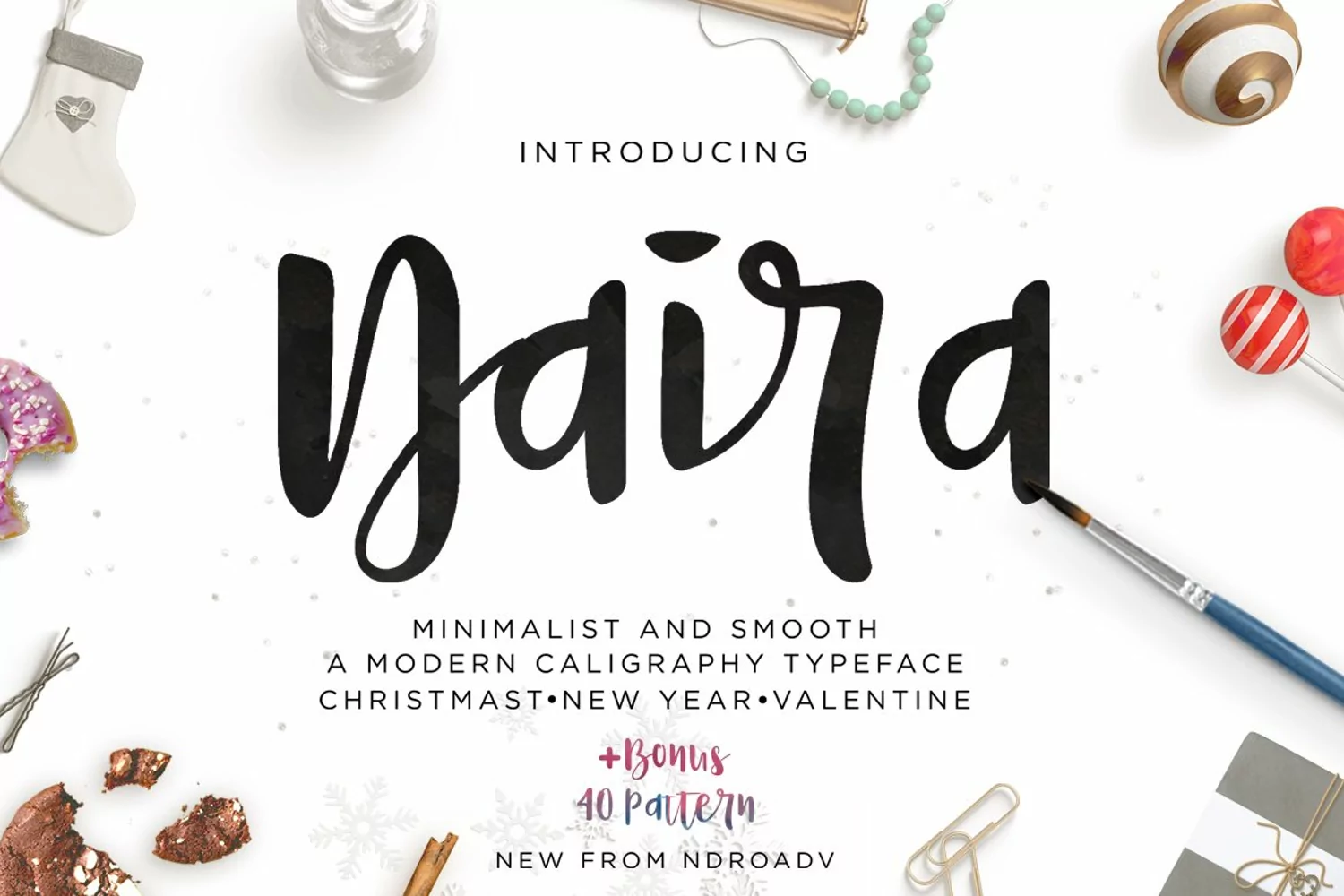
Naira is a modern calligraphy script font with a very feminine feel. Minimalist and smooth, this script font is fun to use and easy to read. Not only do you get this gorgeous font, but a watercolor pattern bonus of 40 elements for use in Photoshop. Combine these two for some stunning artwork or designs!